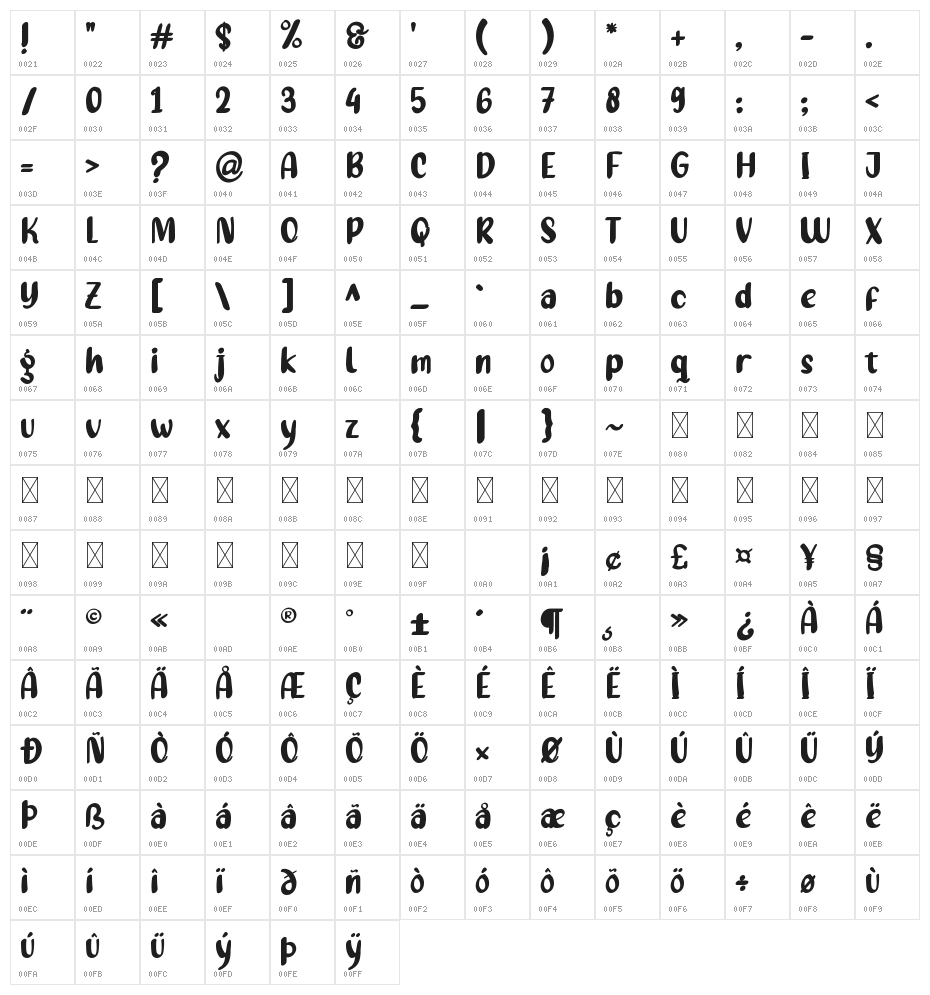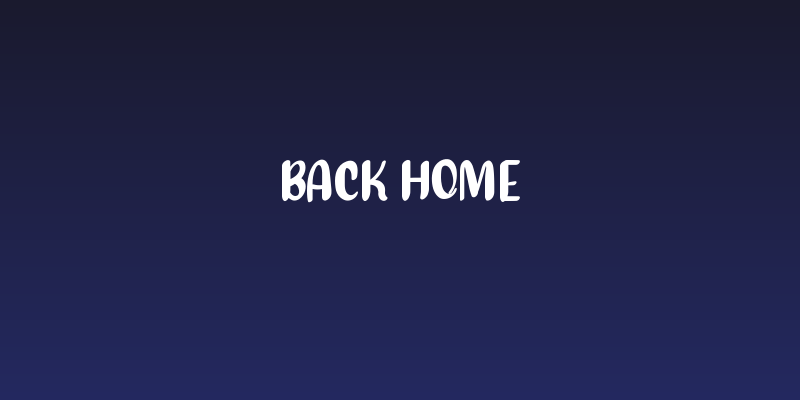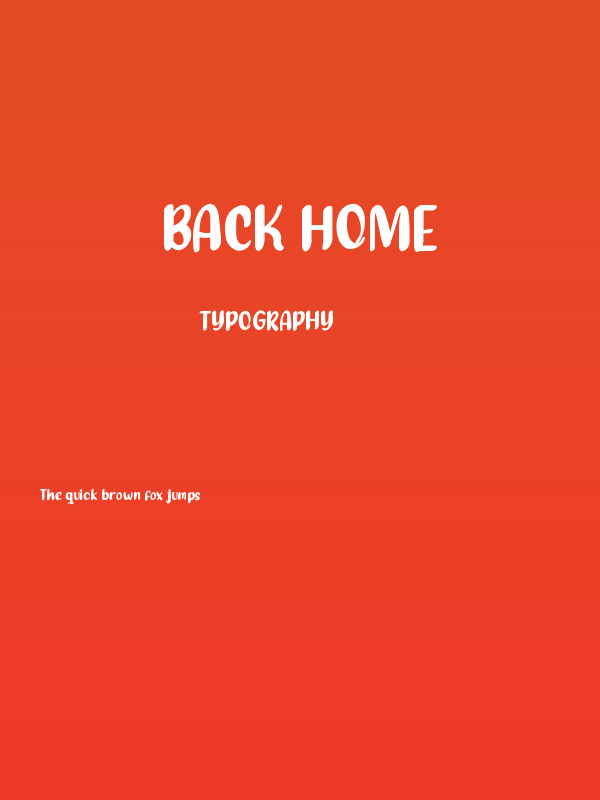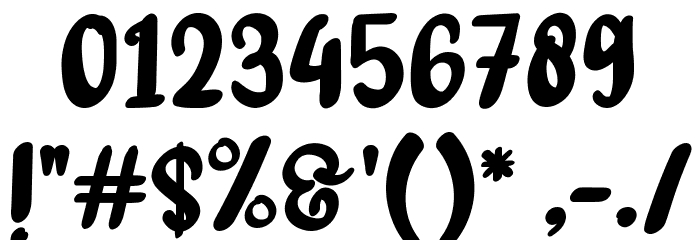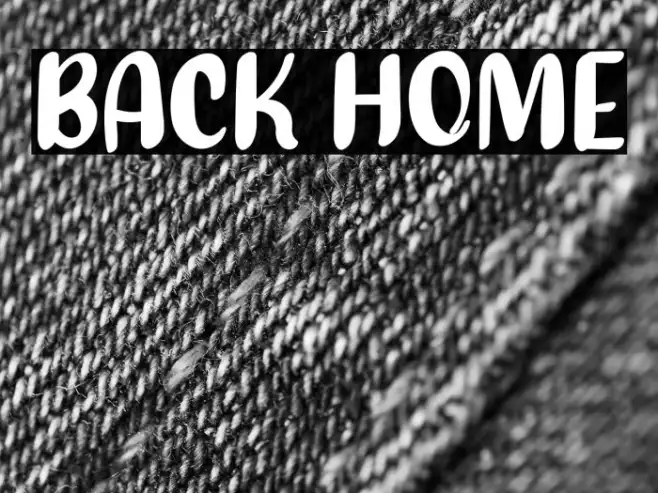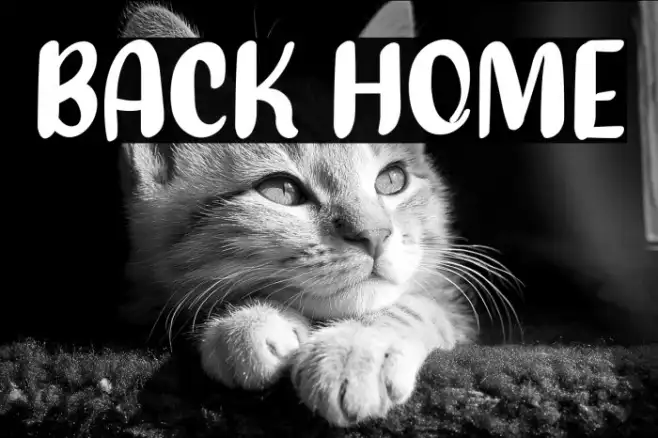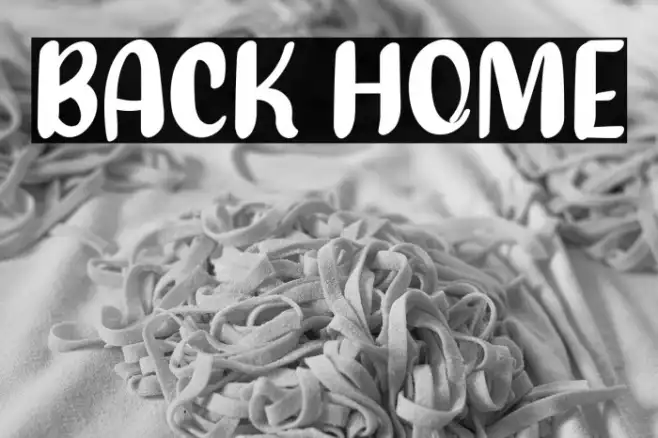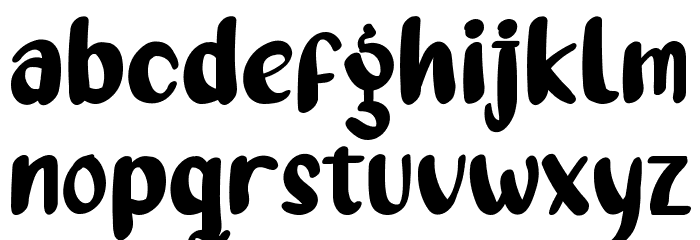
BACK HOME Font
BACK HOME Description
This font features a playful and bold style with rounded edges and a hand-drawn appearance. The letters are thick and have a slightly uneven baseline, adding to the casual and friendly feel. The uppercase and lowercase letters maintain a consistent style, with the lowercase letters being slightly smaller and more compact. Numbers and special characters are designed to match the overall aesthetic, ensuring a cohesive look across all text. This font is highly legible and stands out due to its unique, artistic flair.